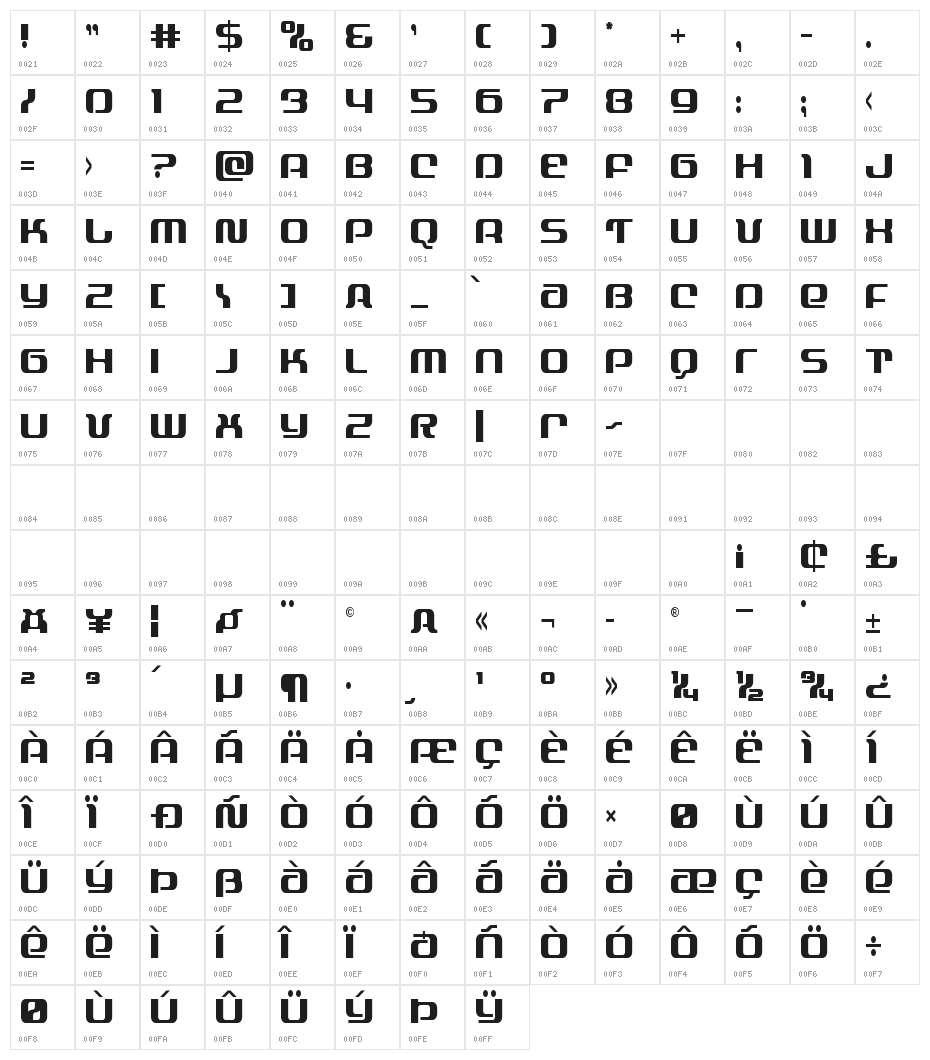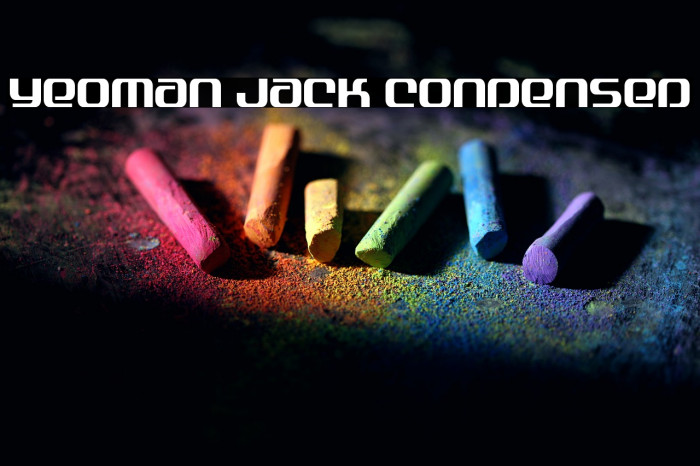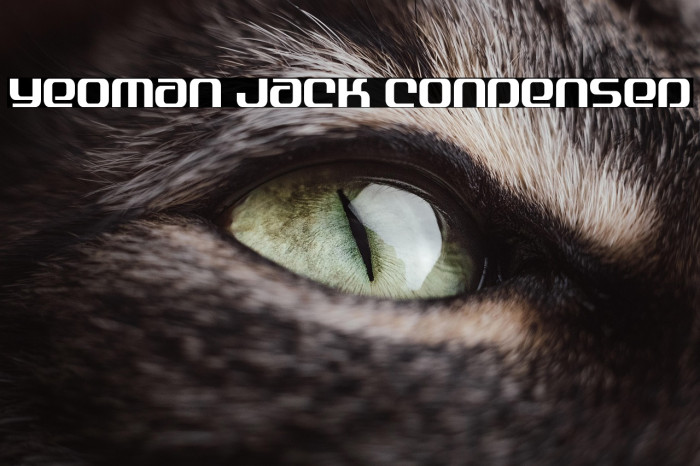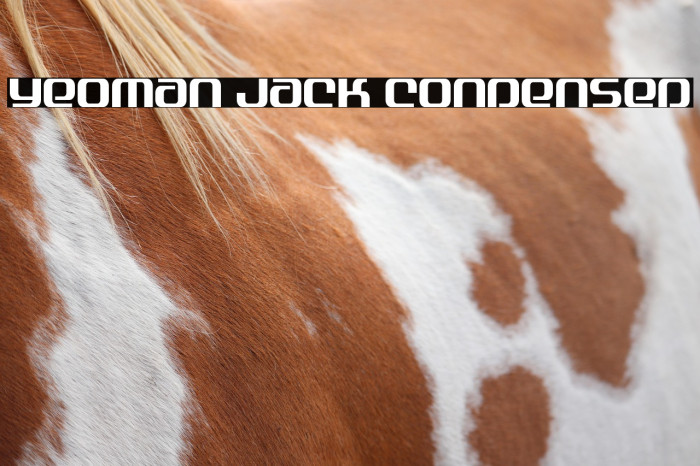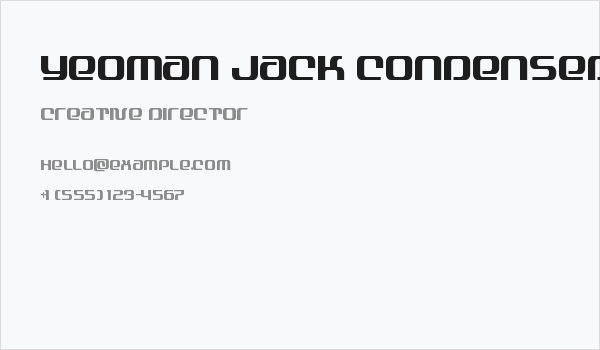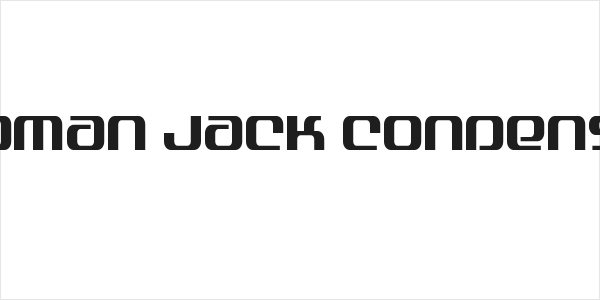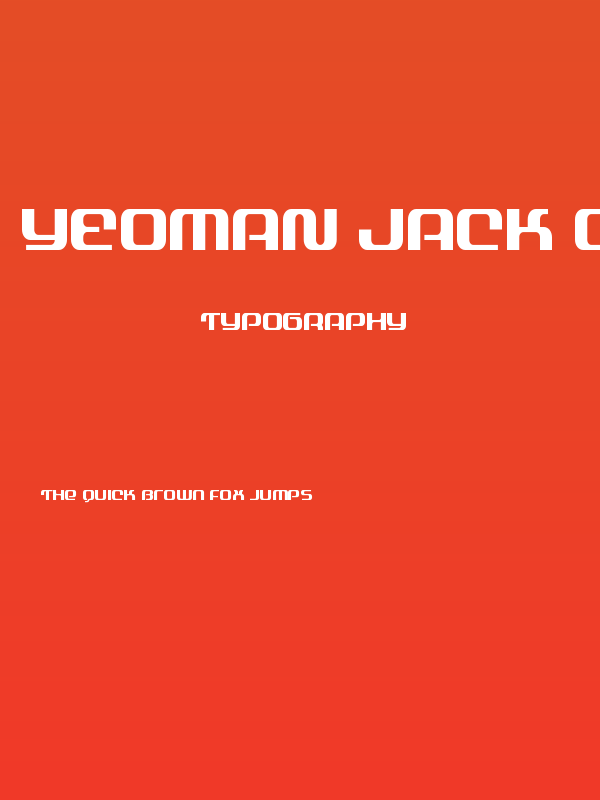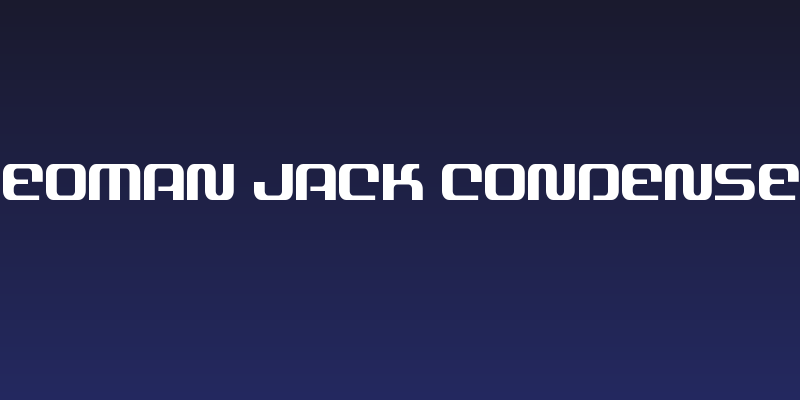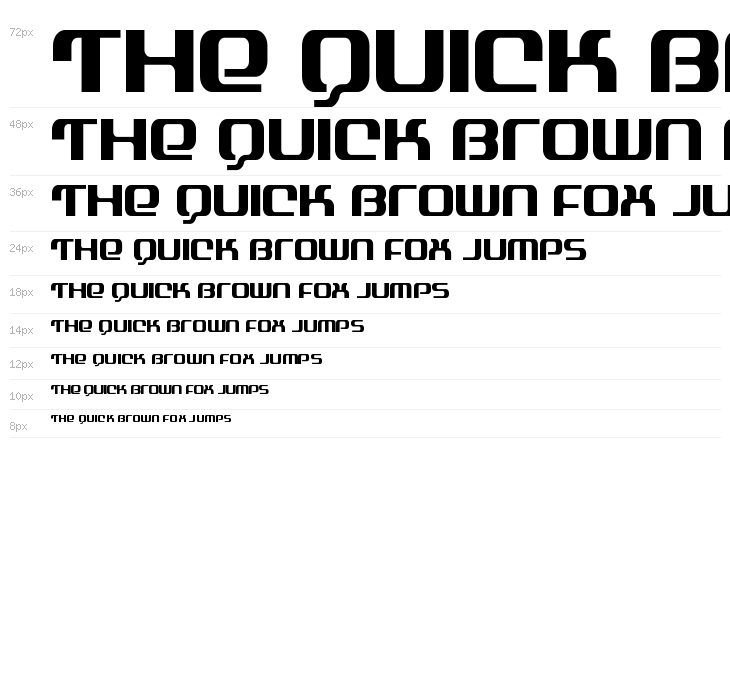
Yeoman Jack Condensed Font
Yeoman Jack Condensed Description
This font features a bold, geometric design with a futuristic flair. The characters are constructed with a consistent stroke width, giving it a uniform appearance. The letterforms are condensed, maximizing space efficiency while maintaining readability. The design incorporates rounded edges and sharp angles, creating a dynamic and modern aesthetic. The uppercase and lowercase letters share similar structural elements, enhancing the cohesive look. The numerals and special characters follow the same stylistic approach, ensuring a harmonious overall appearance. This font is ideal for projects that require a strong, impactful visual presence.
| Proposed Projects | Ideal for technology branding, sci-fi movie posters, video game titles, and modern advertising campaigns. |